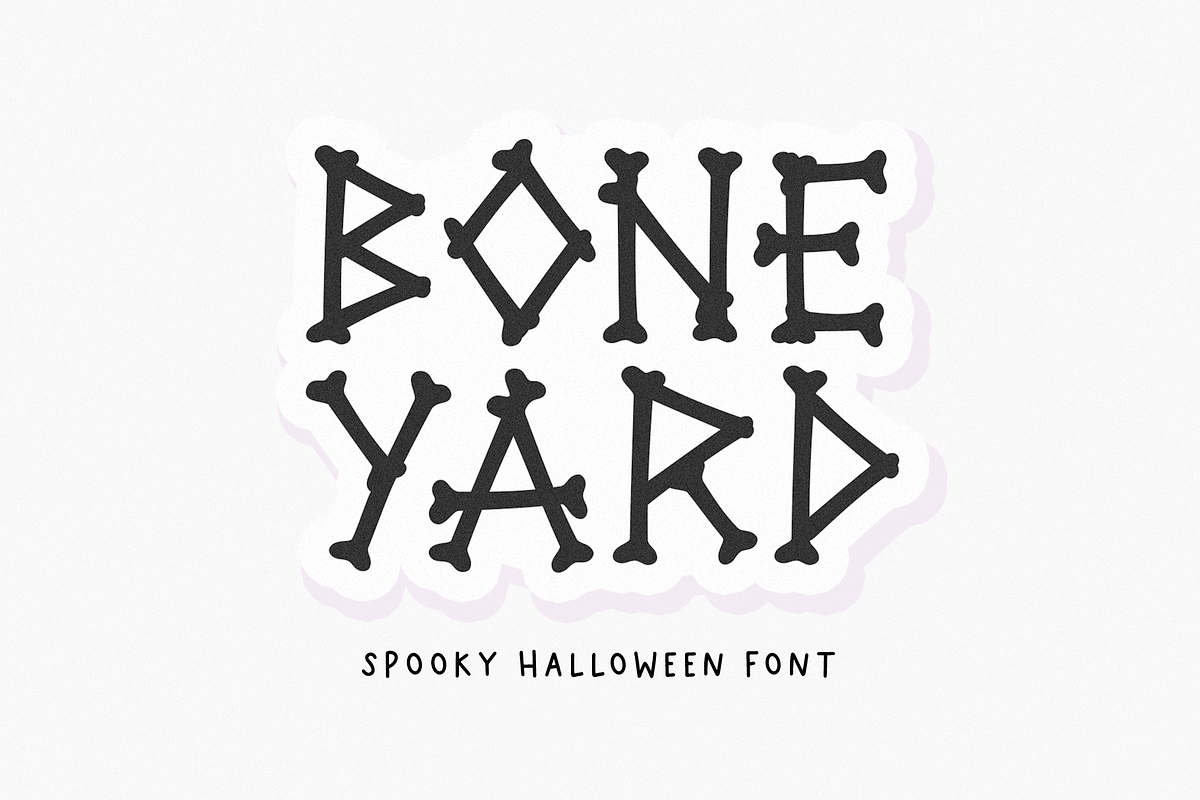
Boneyard | Skeleton Halloween Font Free Download
Boneyard | Skeleton Halloween Font Free Download is a spooky and fun typeface inspired by the eerie and thrilling atmosphere of Halloween. Featuring sharp, jagged edges and bone-like letterforms, this font is perfect for creating creepy designs, Halloween party invitations, haunted house posters, spooky logos, and anything else that needs a chilling vibe.
With its skeletal details and bold presence, Boneyard adds a unique and dramatic touch to your projects, making it ideal for all things horror, gothic, and Halloween-themed.
Add some spooky skeleton vibes to your designs with the eerie, chilling style of Boneyard! 💀🎃👻